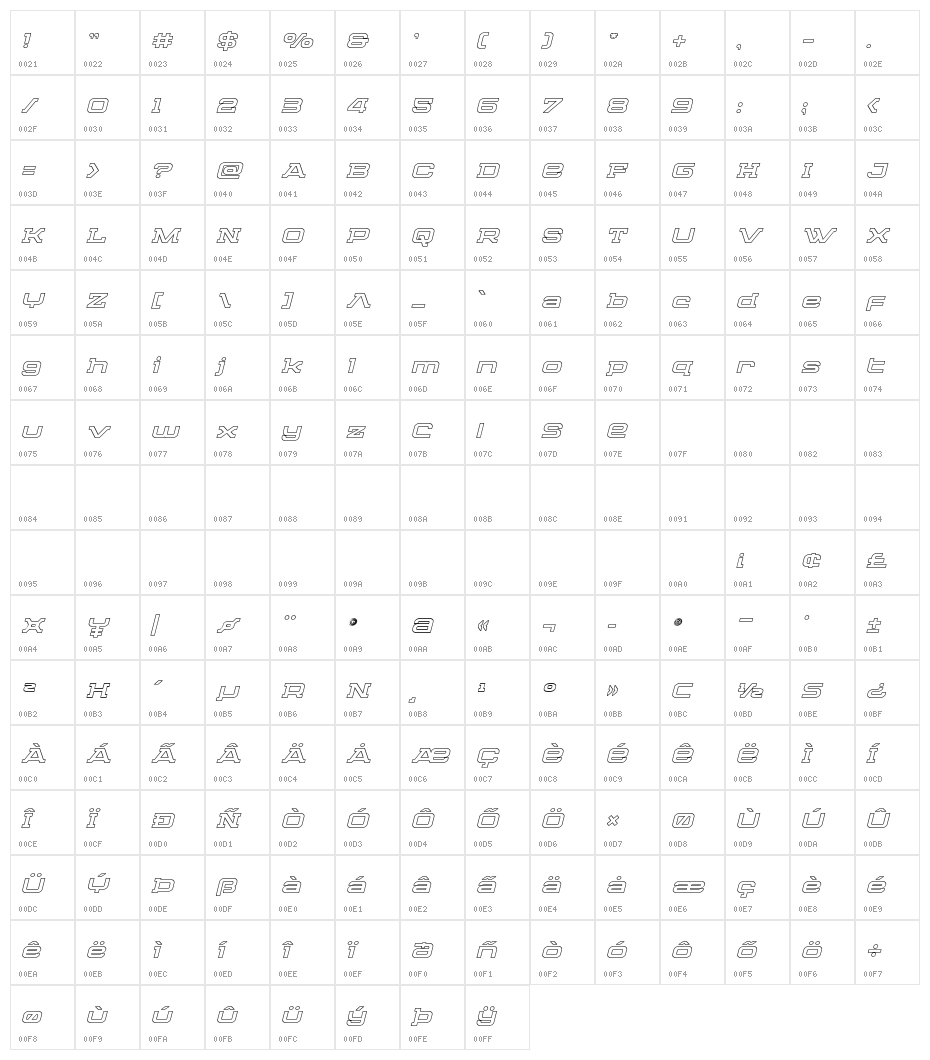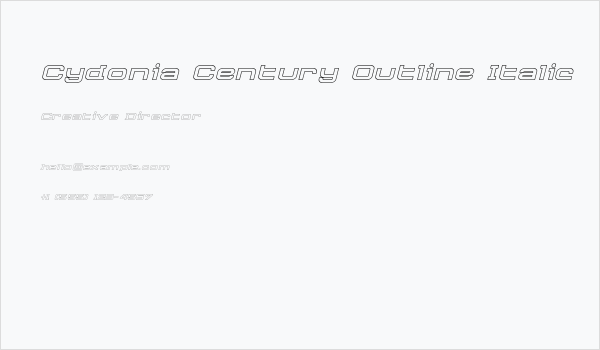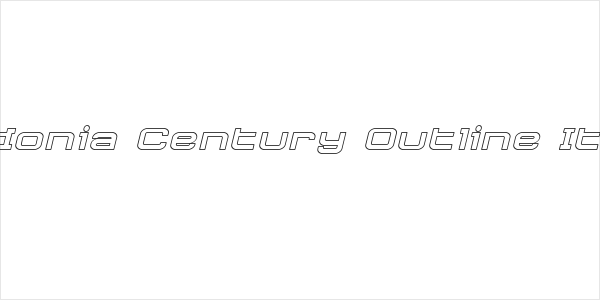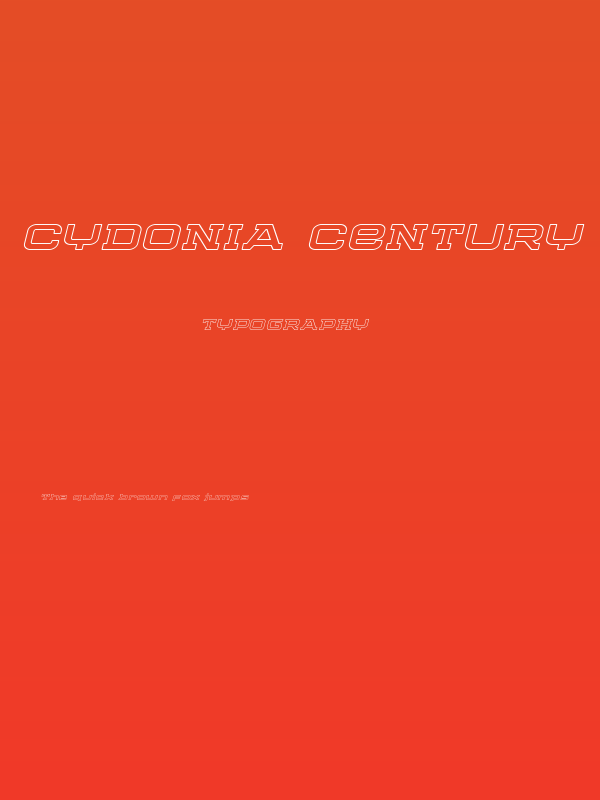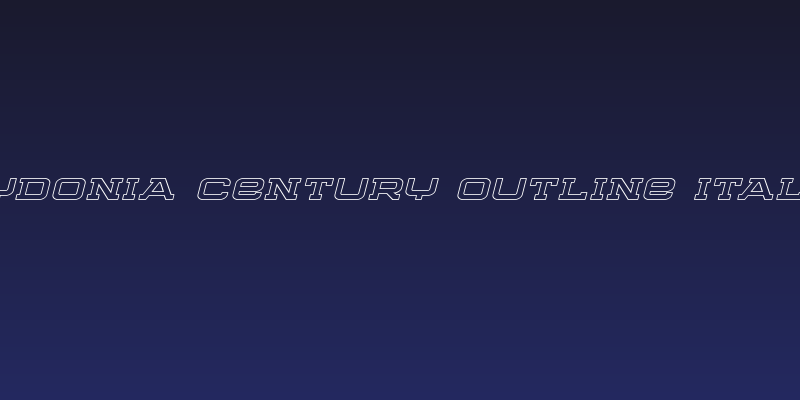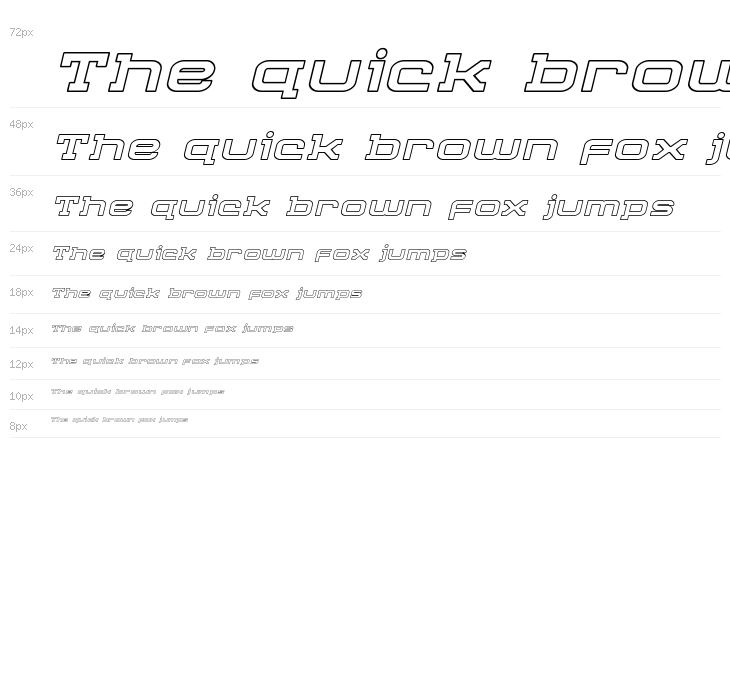
Cydonia Century Outline Italic Font
Cydonia Century Outline Italic Description
This font features a distinct outline style with a modern and futuristic aesthetic. The characters are italicized, giving a dynamic and forward-leaning appearance. The uppercase and lowercase letters maintain a consistent geometric form, with sharp angles and clean lines. The numerals and special characters are designed to match the overall style, ensuring uniformity across all glyphs. The outline effect adds a unique dimension, making it suitable for eye-catching designs.
Proposed ProjectsIdeal for branding, posters, and digital media where a modern and striking appearance is desired.